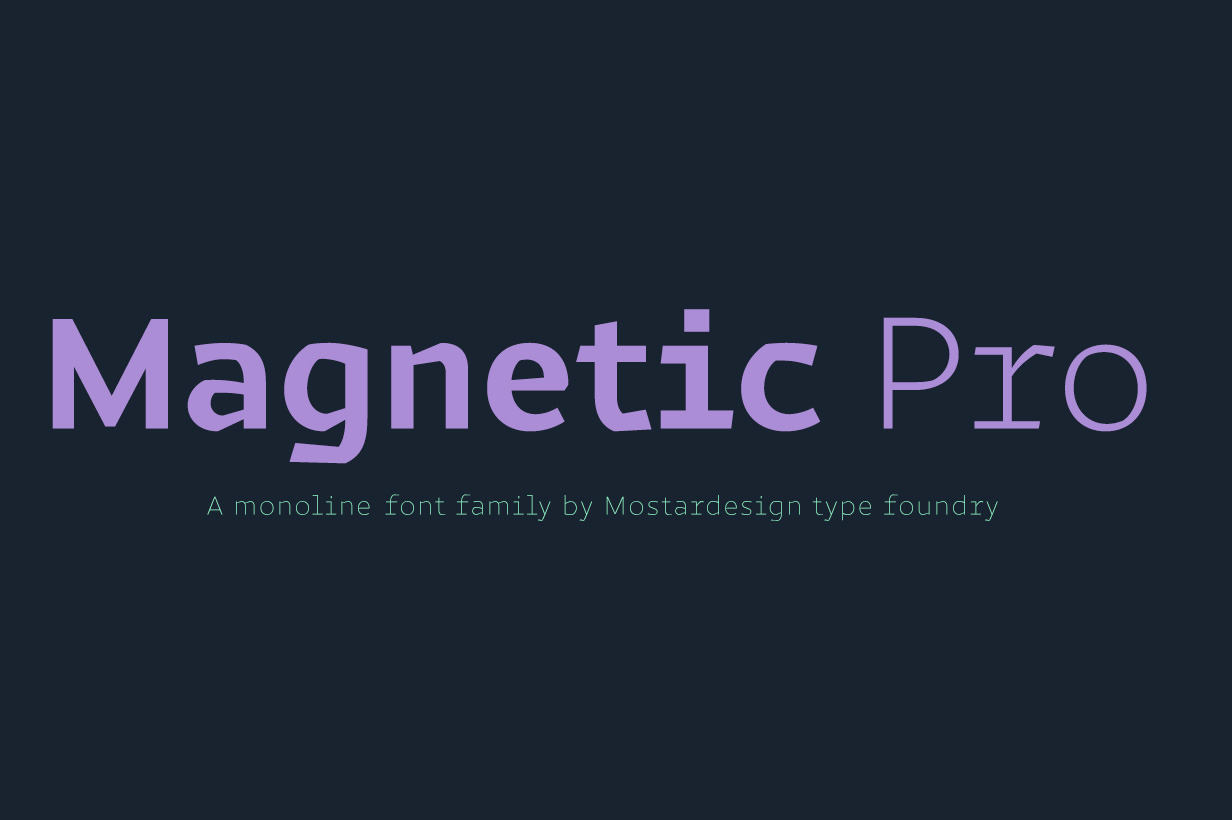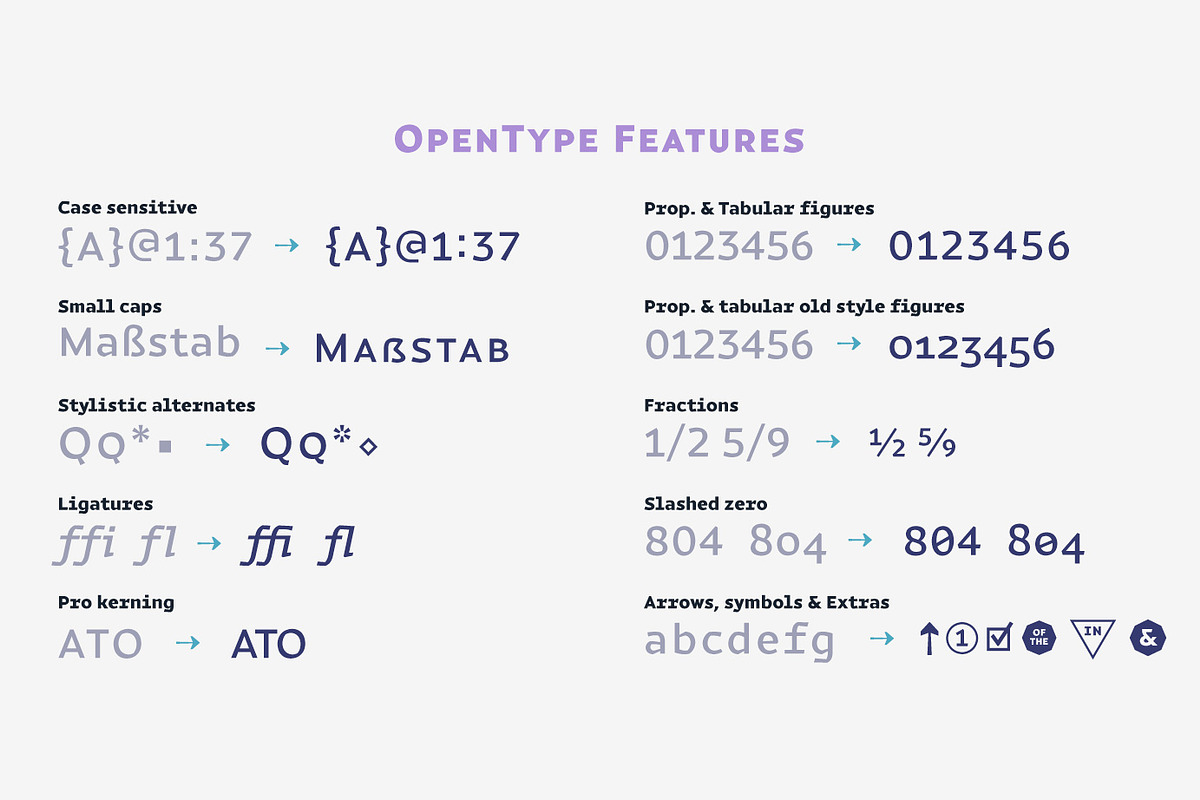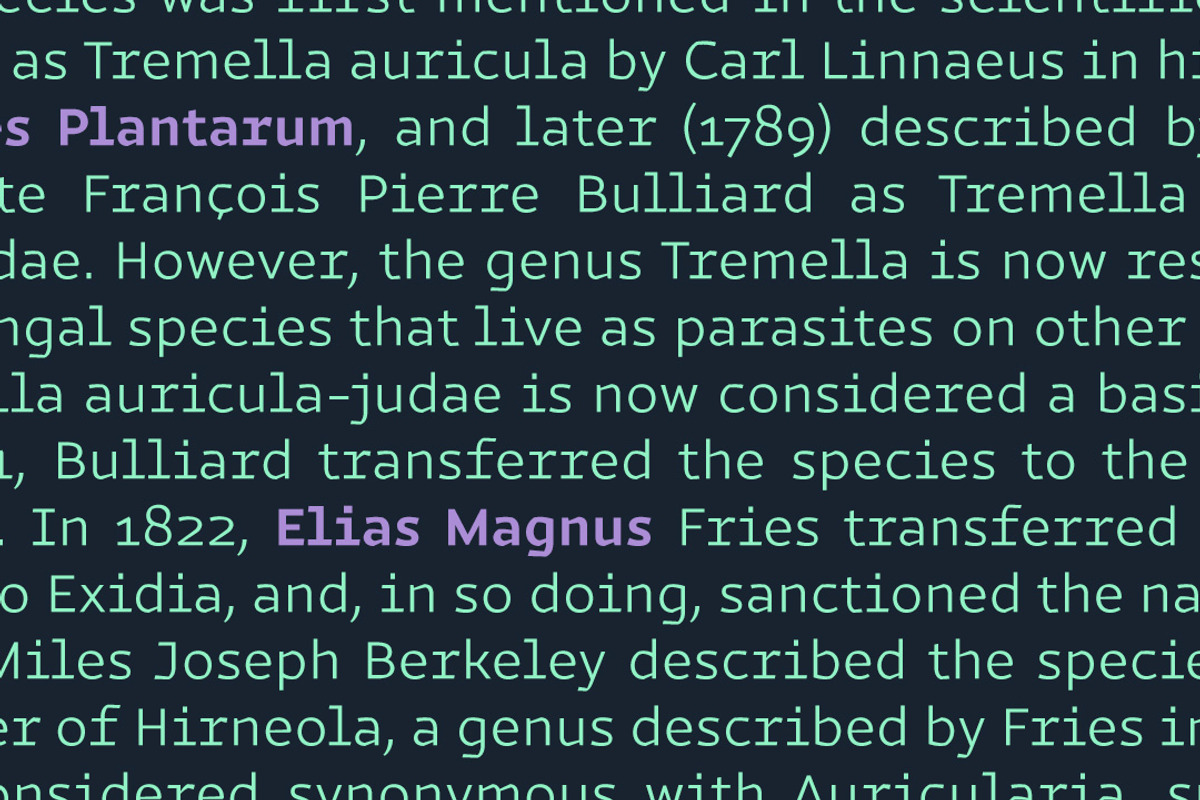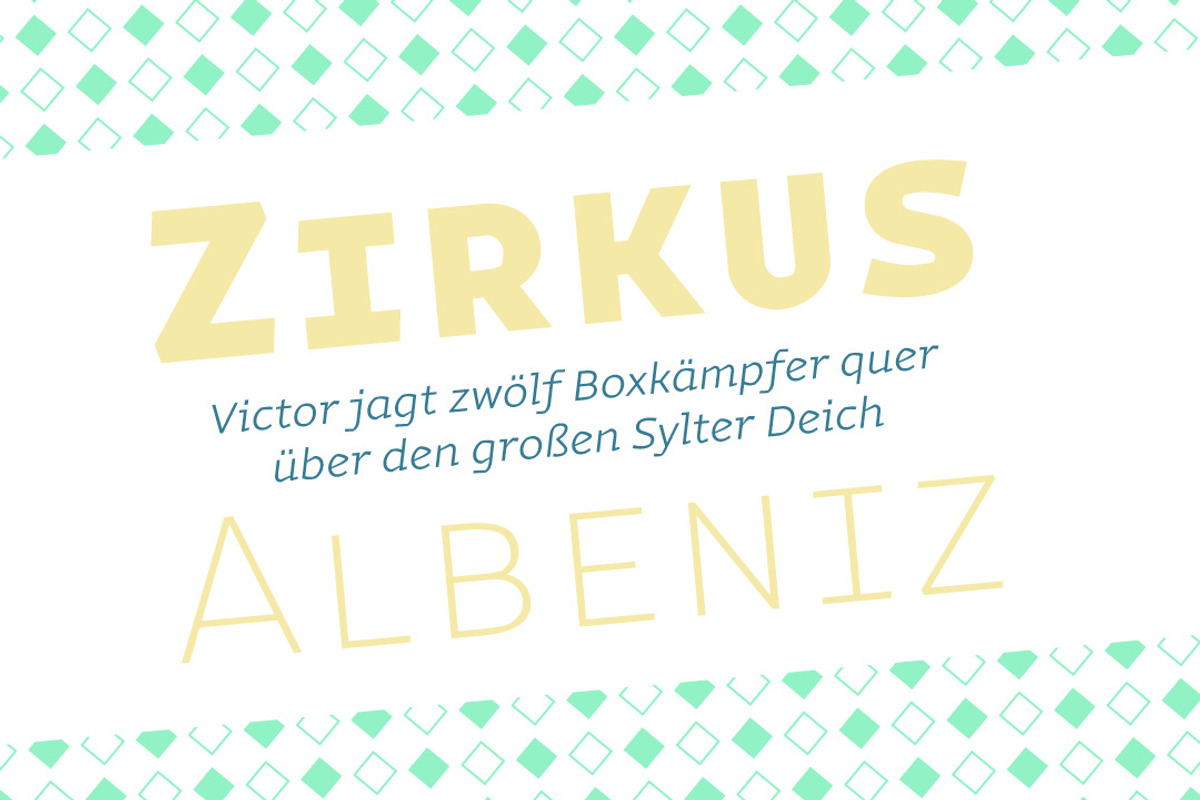
Magnetic Pro font family
Magnetic Pro is a typeface inspired by typewriter characters with a mechanical aspect. Equipped for professional typography, this font family has many OpenType features such as small caps, case sensitive forms, tabular and oldstyle figures, pro kerning, circled numerals, ligatures, and extra graphics. It comes in 8 weights with corresponding italics and it's suited for multiple purposes including display and editorial use, especially for advertising, long text, packaging and branding.
Magnetic Pro has true italics with a 'mechanical script' aspect to give more style in long texts. It has also an extended character set to support Central and Eastern European as well as Western European languages.
Magnetic Pro has also an extra graphics style for those who wants to add catchwords, special titles, arrows and geometric shapes to their creative projects.